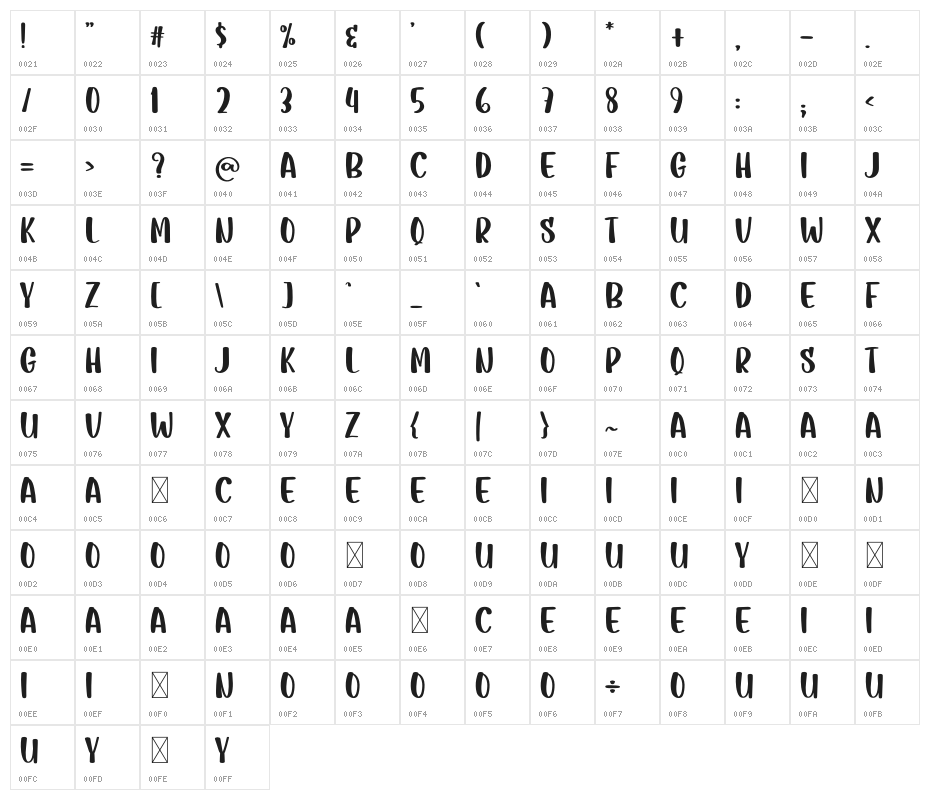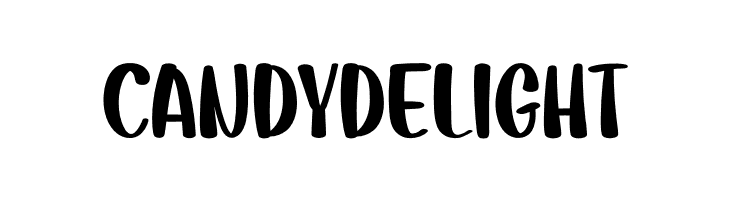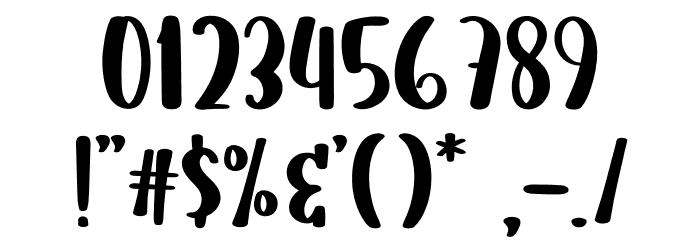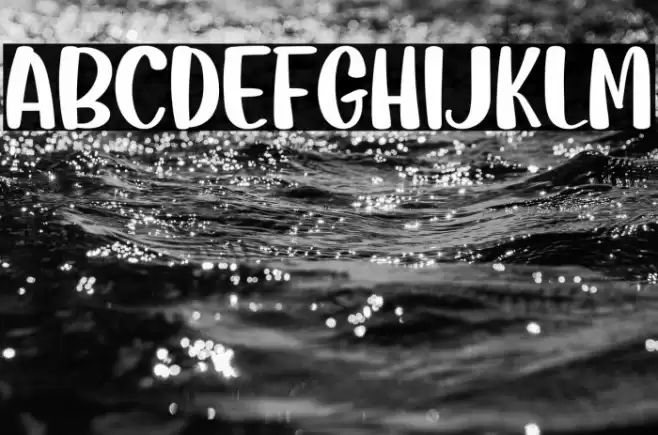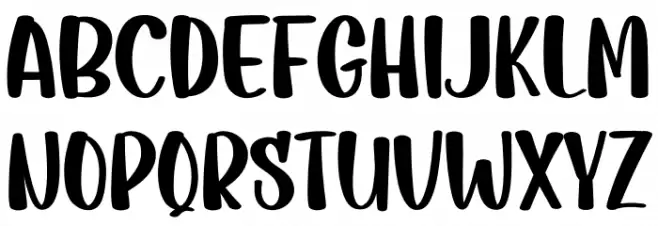
Candy Delight Font
Candy Delight Description
This playful and bold font features a handwritten style with a smooth, flowing appearance. The characters are rounded and slightly irregular, giving a casual and friendly vibe. The uppercase and lowercase letters maintain a consistent style, with the uppercase being slightly more structured. Numbers and special characters are designed to match the whimsical nature of the alphabet. The font's thick strokes and rounded edges make it highly legible, even at smaller sizes, while its unique style adds a touch of personality to any text.
| Overall Style | Playful, Casual |
| Proposed Projects | Ideal for children's books, playful branding, greeting cards, and social media graphics. |